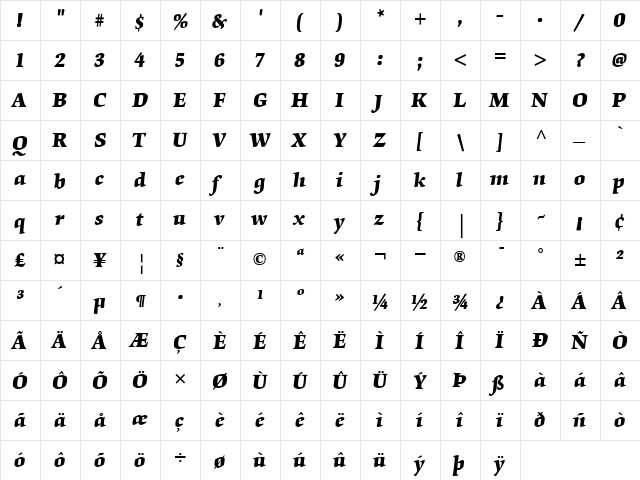
Origami BoldItalic Font Preview
Design Context for Origami Typeface
Origami takes a measured approach to typography — its balanced proportions and neutral character make it a reliable workhorse for both digital and print work. Its italic angle brings a sense of urgency and motion to the letterforms. Its bold stroke weight gives it real presence on the page.
Pro Tip: Try Origami for annotation and caption copy alongside an upright companion — the contrast in angle creates a dynamic but ordered typographic system.